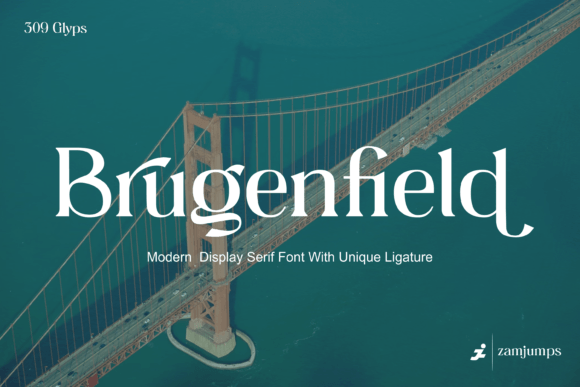
The Hunt for the Perfect Font: Discovering Brugenfield
I still remember the countless hours I spent searching for the ideal font for a client’s luxury brand project. The brief was simple: elegant, sophisticated, and attention-grabbing. I scrolled through font libraries, tried out dozens of options, but nothing seemed quite right. That was until I stumbled upon Brugenfield, a modern serif display font that instantly caught my eye. In this article, I’ll share my experience with Brugenfield, its unique features, and how to make the most of it in your designs.
First Impressions: What I Love About Brugenfield
Brugenfield is a stunning serif display font with a unique ligature that sets it apart from other fonts in its category. Here are some things I love about it:
- ✨ Unique Ligature: The ligature feature in Brugenfield adds a touch of elegance and sophistication to any design.
- ✅ Versatility: It’s suitable for a wide range of applications, including logos, headlines, titles, invitations, labels, magazines, books, greeting and wedding cards, packaging, fashion, makeup, stationery, novels, and more.
- ✅ Modern Feel: Brugenfield has a distinctly modern feel that will elevate your designs and make them stand out.
While Brugenfield is an excellent font, it’s not without its limitations. Here are a few things to keep in mind:
- ⚠️ Limited Use in Body Text: Due to its decorative nature, Brugenfield might not be the best choice for body text. It’s better suited for headlines, titles, and short paragraphs.
- 🤔 Kerning Issues: As with any font, you might encounter kerning issues, especially when using it in combination with other fonts. Make sure to adjust the kerning to achieve the best results.
The Story Behind Brugenfield
Brugenfield was designed with the intention of creating a modern serif font that would cater to the needs of luxury brands and high-end designs. The designer aimed to create a font that would exude elegance, sophistication, and refinement. The result is a stunning font that is both versatile and eye-catching.
| Font Name | Brugenfield Font |
| Author | zamjump |
| What is Brugenfield best suited for? | Brugenfield is best suited for logos, headlines, titles, invitations, labels, magazines, books, greeting and wedding cards, packaging, fashion, makeup, stationery, novels, and more. |
| Can I use Brugenfield for body text? | While Brugenfield can be used for short paragraphs, it’s not recommended for extensive body text due to its decorative nature. |
| Does Brugenfield support OpenType features? | Yes, Brugenfield supports OpenType features, including ligatures, glyphs, and stylistic alternates. |